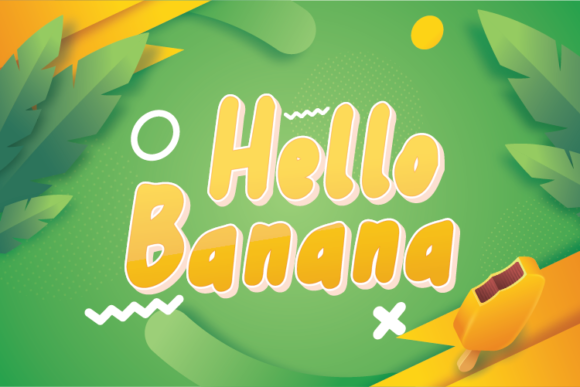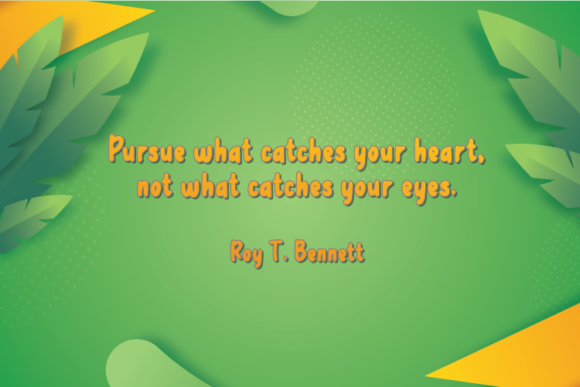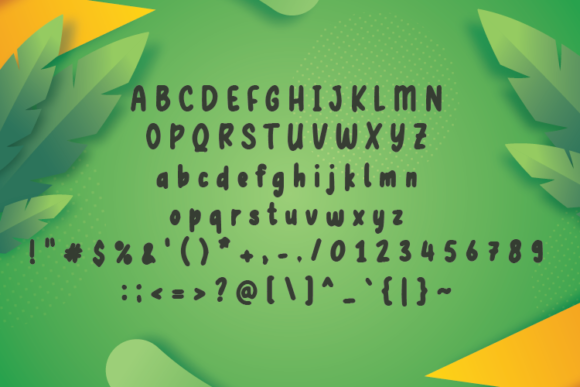
Get Ready to Go Bananas with Typography!
Who among us hasn’t experienced that magical moment when the creative juices start flowing, and our imagination runs wild? For designers, it’s a rush of excitement as we envision a project coming to life. It’s that moment when the perfect font can elevate an entire design, turning a good idea into a truly unforgettable experience.
Enter the Hello Banana Font, a playful and chunky display font that’s guaranteed to put a smile on your face. This delightful font is perfect for children-related projects, storybooks, clothing, games, and other informal projects where a touch of whimsy is needed. With its unique charm, Hello Banana Font is a valuable addition to any designer’s toolkit, adding a splash of fun and personality to even the most mundane designs.
Hello Banana Font Key Features
- Font Family: Hello Banana is a unique, hand-drawn font designed to evoke a sense of whimsy and playfulness.
- Character Set: Includes a comprehensive set of characters, including uppercase and lowercase letters, numbers, punctuation, and special characters.
- Resolution: Designed to be scalable and legible at high resolutions, making it suitable for use in digital and print media.
- Unique Characteristics: Features a distinctive, banana-inspired design element, adding a touch of personality to any design project.
Hello Banana Font Review
Overall, I’d say the Hello Banana Font is a cute and quirky choice for a design project. ✨ The font’s unique banana shape adds a playful touch, making it perfect for kids’ content, food blogs, or any project that needs a lighthearted feel.
The font’s versatility is another plus point. ✨ It comes in a range of weights, from light to bold, allowing you to adjust the font’s intensity to suit your design needs. Additionally, the font’s banana shape makes it easy to customize and manipulate in creative ways.
However, there are some limitations to consider. ⚠️ The font’s legibility can be a concern, particularly in smaller text sizes. The banana shape can make the font appear cluttered or overwhelming if not used judiciously. Furthermore, the font may not be suitable for professional or corporate designs, as it may come across as too playful or immature.
Key Points:
- Unique and playful design
- Versatile and customizable
- Legibility can be a concern in smaller text sizes
- May not be suitable for professional or corporate designs
Tip: Use the Hello Banana Font for headings and titles to add a playful touch to your design.
Tip: Use the Hello Banana Font for creative typography projects, such as posters or invitations.
Tip: Use the Hello Banana Font for headings and titles to add a playful touch to your presentation or document.
The Hello Banana Font is ideal for:
- Children’s books and educational materials
- Playful advertising and marketing materials